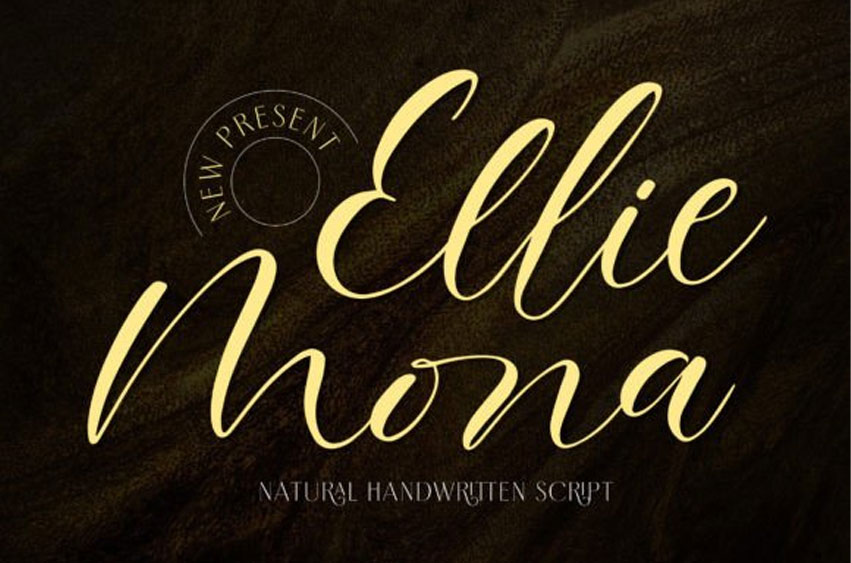
Ellie Mona Font Not too thin and not too thick, balanced and varied, this font was designed to enhance the beauty of your projects.
An natural exquisite and delicate handwritten script font that exudes elegance. It features captivating letter alternatives and enchanting tails at end of each stroke.